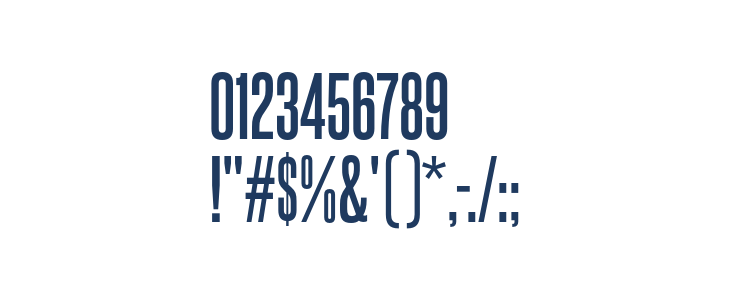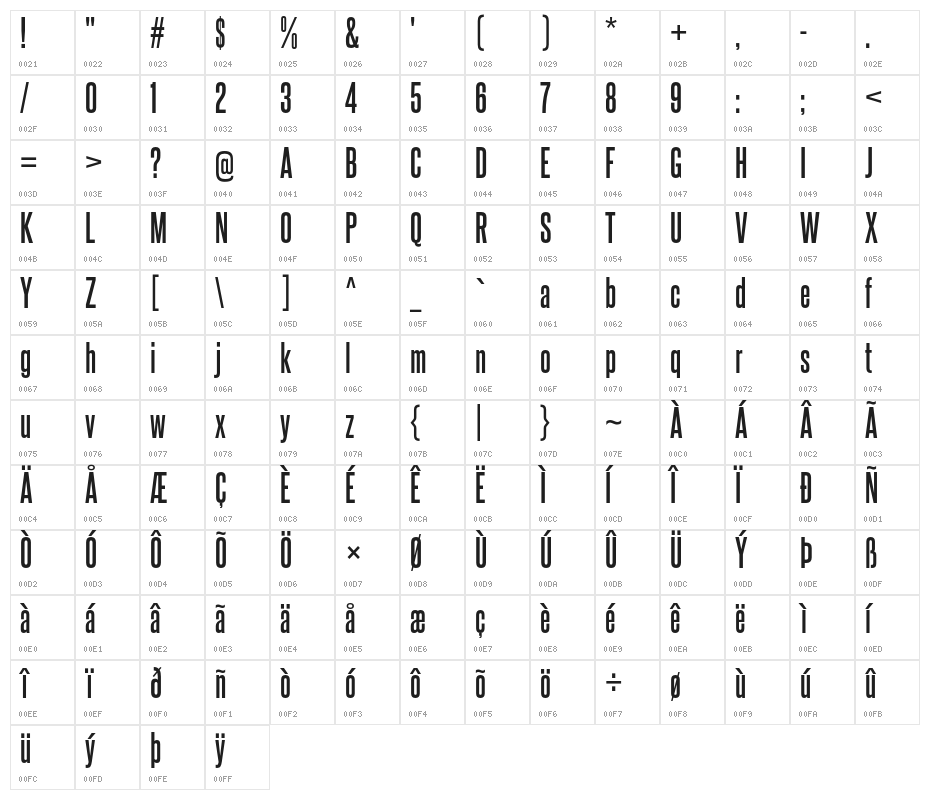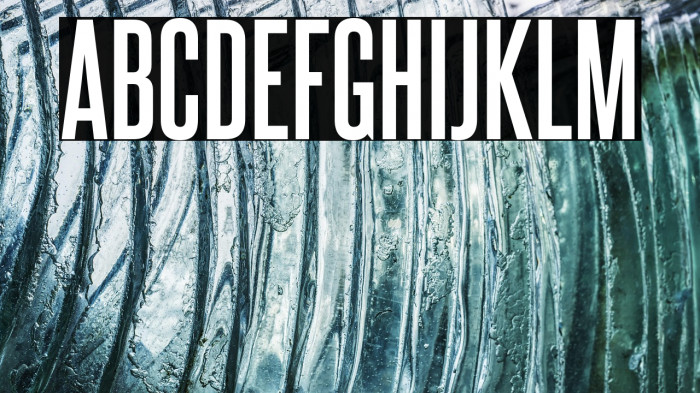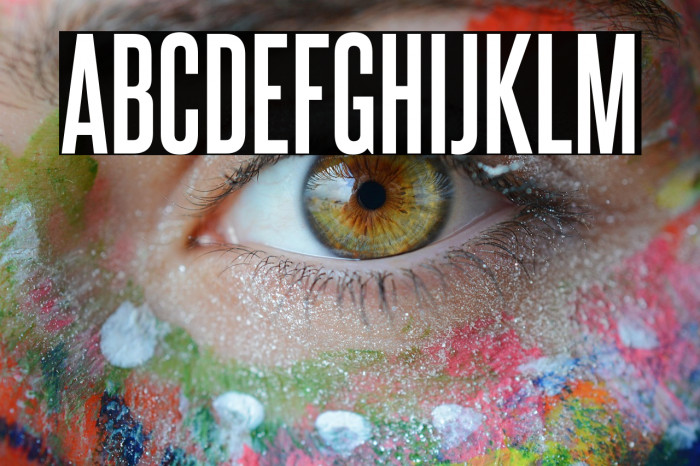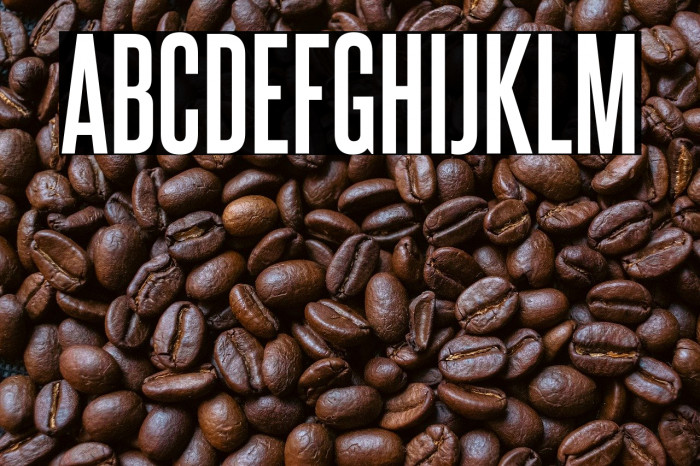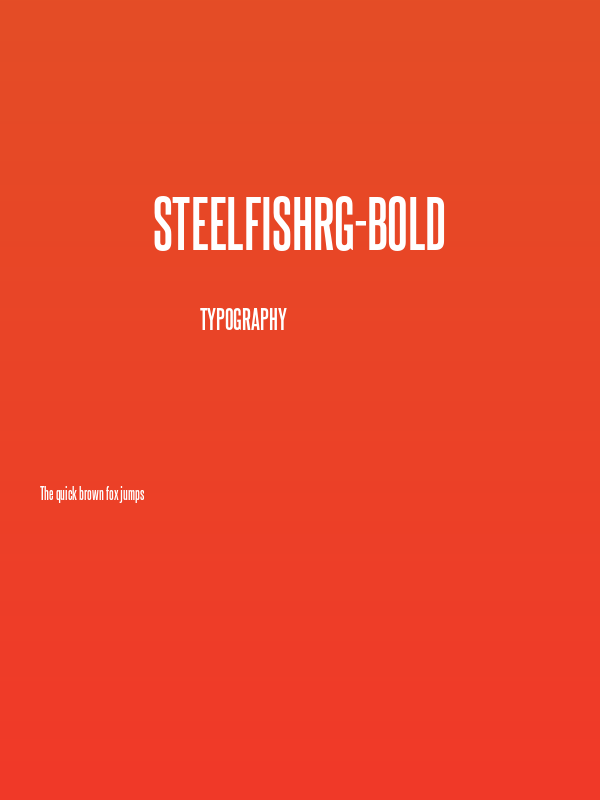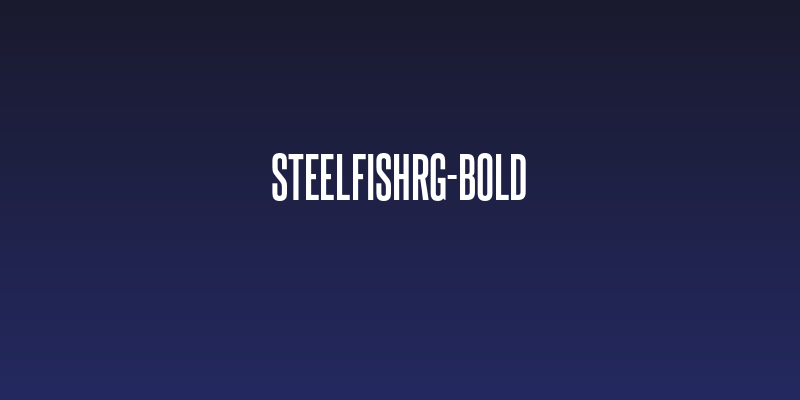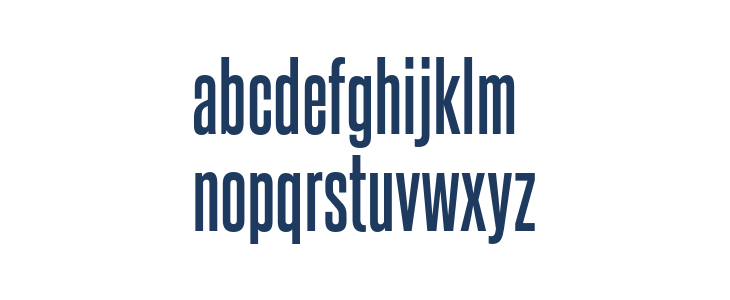
SteelfishRg-Bold Font
SteelfishRg-Bold Description
This font features a bold and condensed sans-serif style, characterized by its tall, narrow letters and clean lines. The uppercase and lowercase letters maintain a consistent height, contributing to a uniform appearance. The numerals are equally bold, ensuring readability and impact. Special characters are designed with the same attention to detail, making them suitable for various applications. The overall design is modern and sleek, ideal for making a strong visual statement.
| Proposed Projects | Ideal for headlines, posters, branding, and advertising where a strong visual impact is needed. |